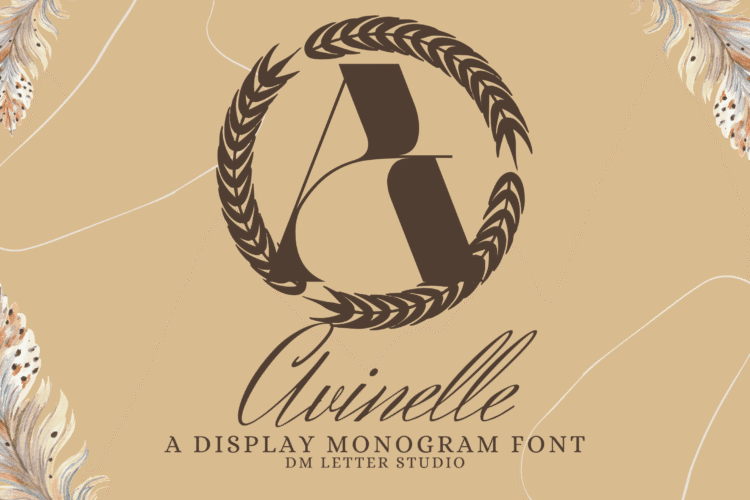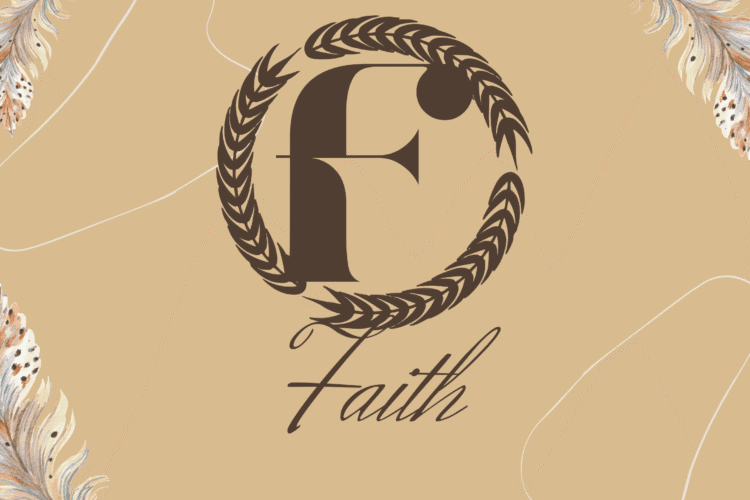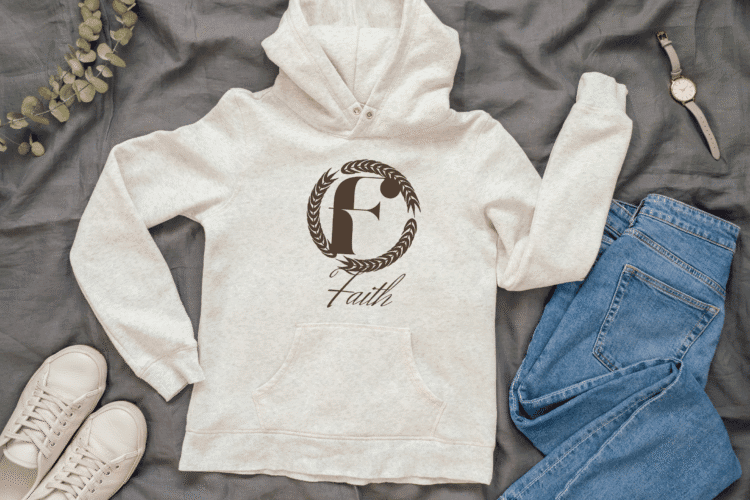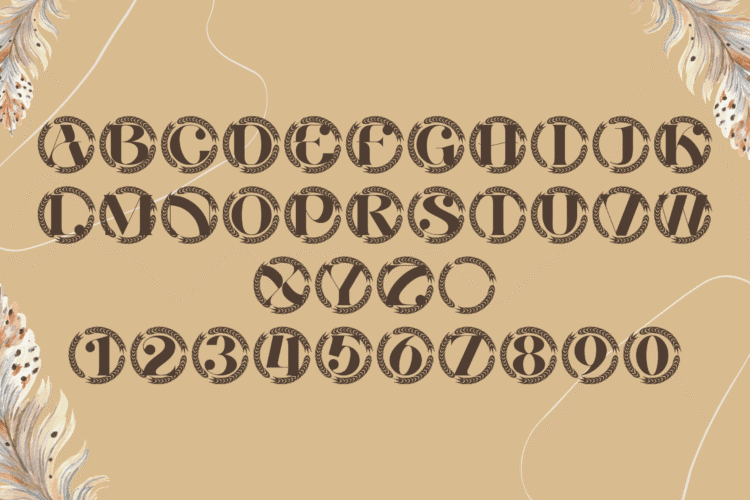
Meet Avinelle, the Monogram Font
Avinelle Monogram Font turns simple initials into polished marks that read fast at any size. Strokes feel smooth and balanced. Counters stay open, so tiny tags and foil seals remain crisp. Use it for wedding suites, boutique logos, keepsake gifts, and premium packaging. Moreover, this monogram font pairs beautifully with modern serifs and clean sans fonts, which keeps layouts elegant without extra work.
Where this monogram font shines
Set single, double, or triple initials for logos, seals, menus, and place cards. Then frame them with laurel rings, oval borders, or thin rules to echo the graceful forms. Since proportions favor symmetry, you can build neat compositions in minutes. As a result, your thumbnails stand out on crowded marketplaces and your listings look consistent across products. Plus, Avinelle scales smoothly from jewelry cards to large venue signage.
Fast setup, refined results
Design tips for Avinelle Monogram Font
Keep initials large and let white space breathe. Pair the headline monogram with a quiet serif or humanist sans for supporting text. Add micro shadows, a fine inner stroke, or a delicate frame for depth. Because the structure is airy, textured papers and metallic accents raise perceived value. However, keep wording short so the monogram remains the hero.
Select stylistic alternates for key letters
Curves tuned for foil, letterpress, engraving, laser, and clean vinyl cutting